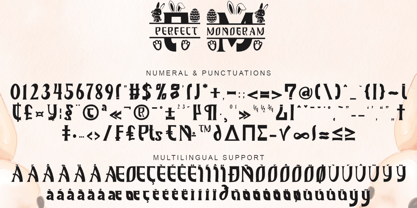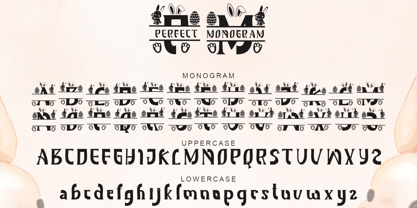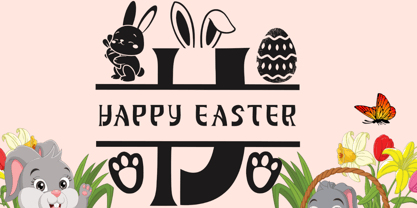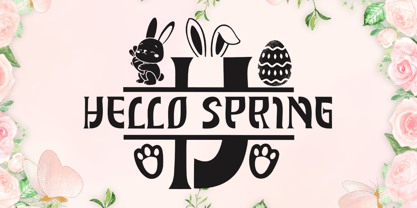
Perfect Easter
by Yoga Letter
The Perfect Easter Font Family was designed by Isroni Yoga Prasetya and published by Yoga Letter. Perfect Easter contains 2 styles and family package options.
"Perfect Easter Monogram" is a unique and elegant monogram font. This font is equipped with monograms, uppercase, lowercase, numerals, punctuations and multilingual support. It is very suitable for banners, posters, spring, summer, easter, branding, stickers, logos, procreate, invitations and others.